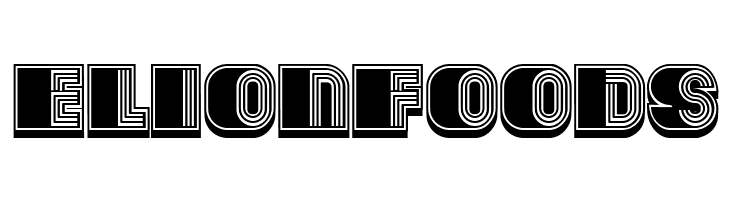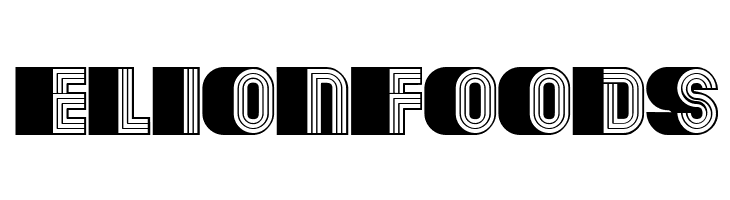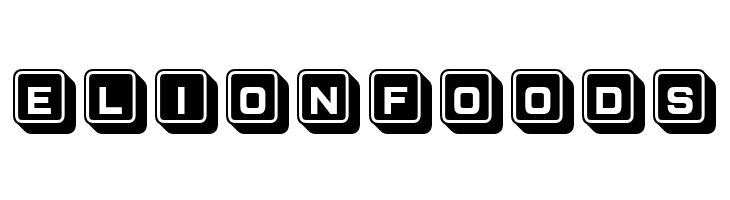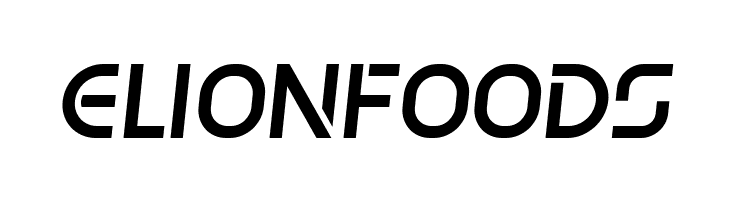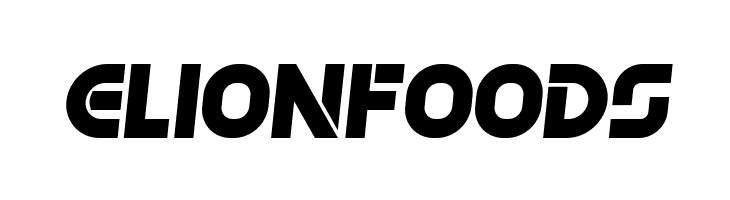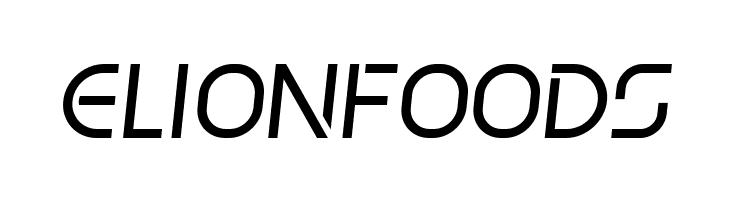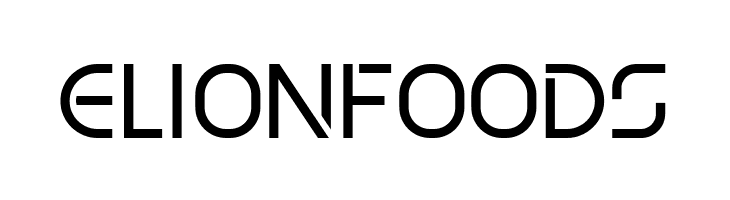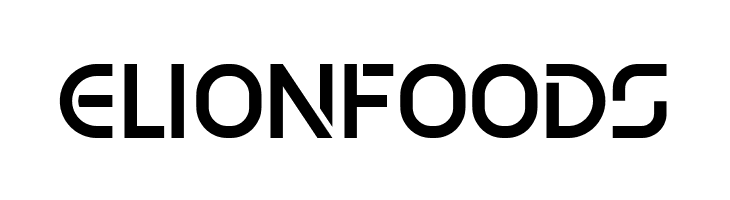
• Olga Black Italic
Bold, geometric font with an italic slant and modern aesthetic.
• Olga Bold
A bold, geometric font with a modern, futuristic design.
• Olga Bold Italic
A bold, italicized typeface with geometric shapes and a dynamic slant.
• Olga Italic
A bold, italic, modern font with geometric shapes and sharp angles.
• Olga Light
A modern, geometric font with a futuristic and clean design.
• Olga Light Italic
A sleek, modern italic font with geometric precision and subtle contrast.
• Olga Regular
A bold, geometric font with a futuristic and dynamic style.
• Oliba 3D Regular
A bold, 3D geometric font with a modern, industrial aesthetic.
• Oliba Regular
A bold, decorative font with a unique striped pattern and high contrast.
• Olivetti Filled
A bold, geometric font with characters enclosed in rounded squares, offering a modern and structured look.